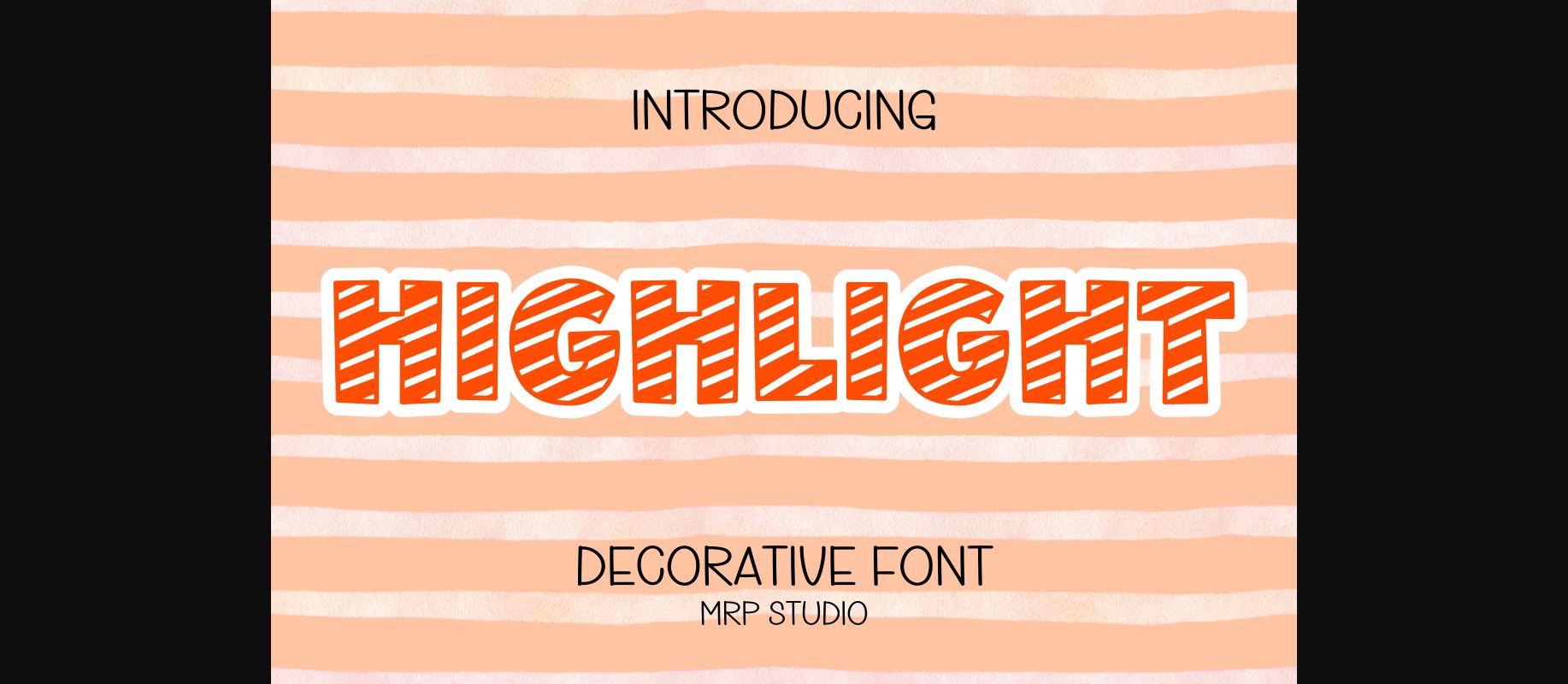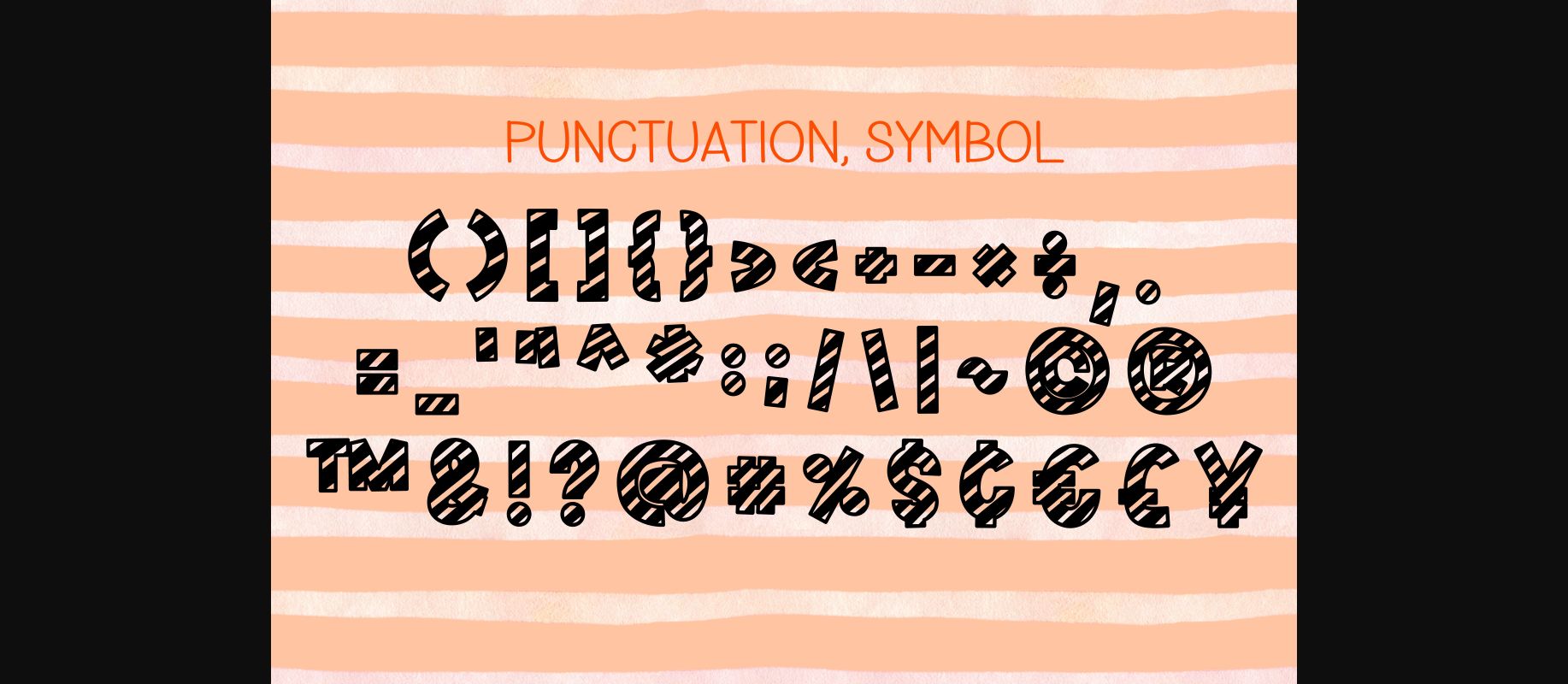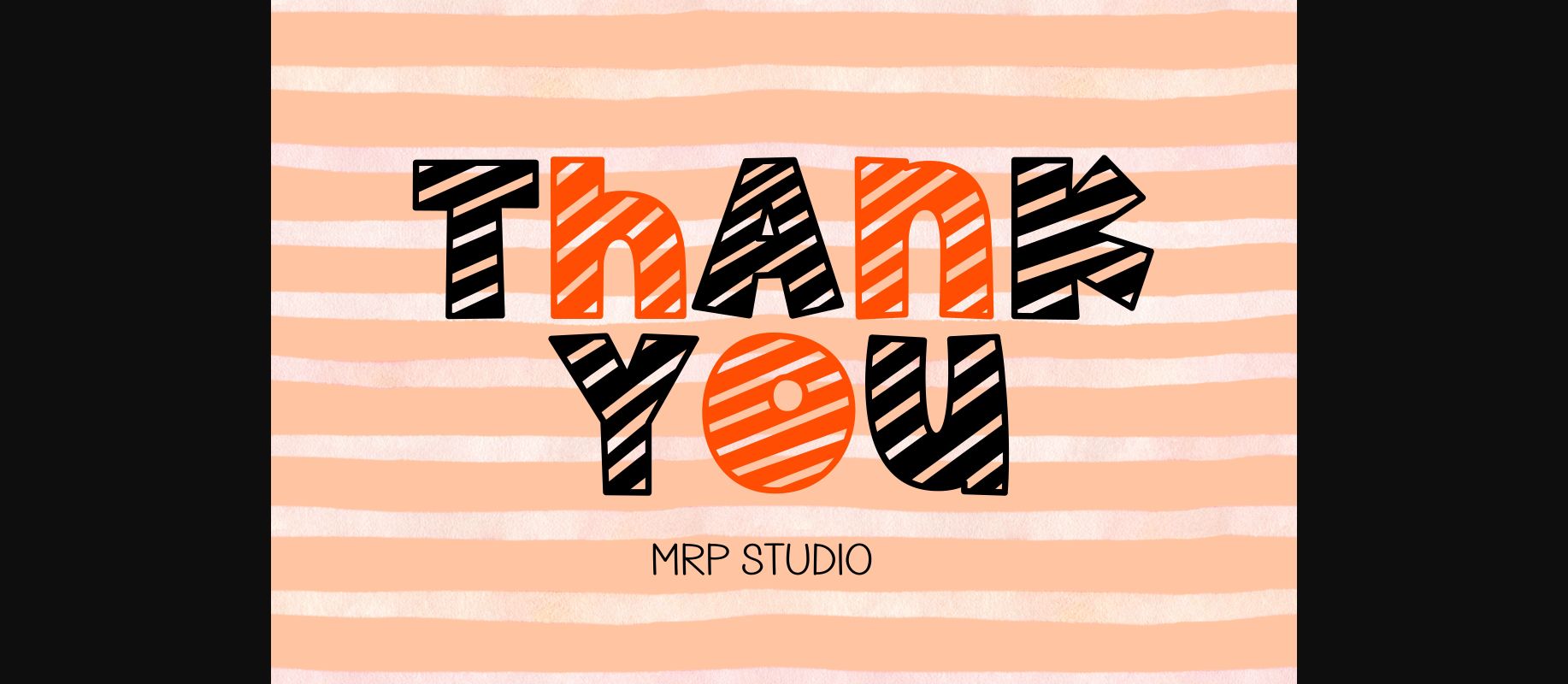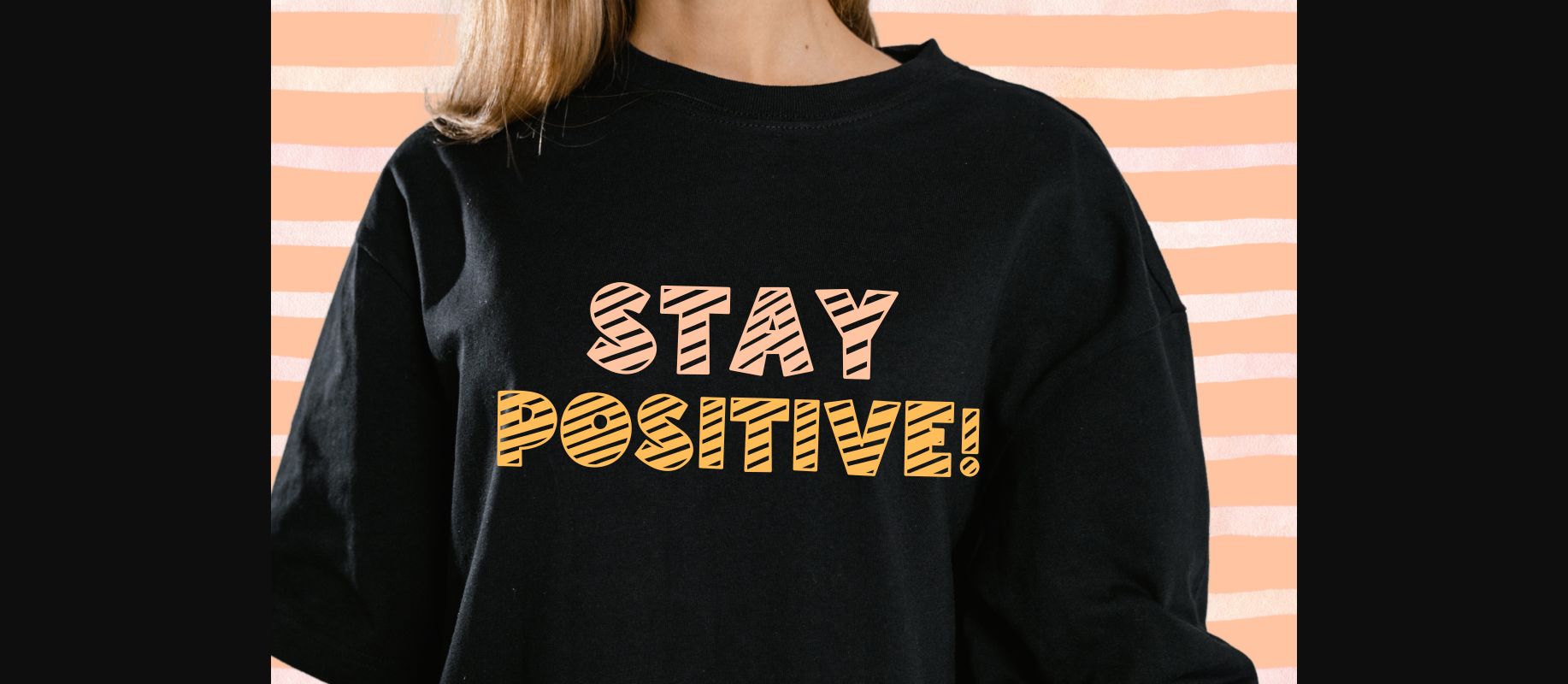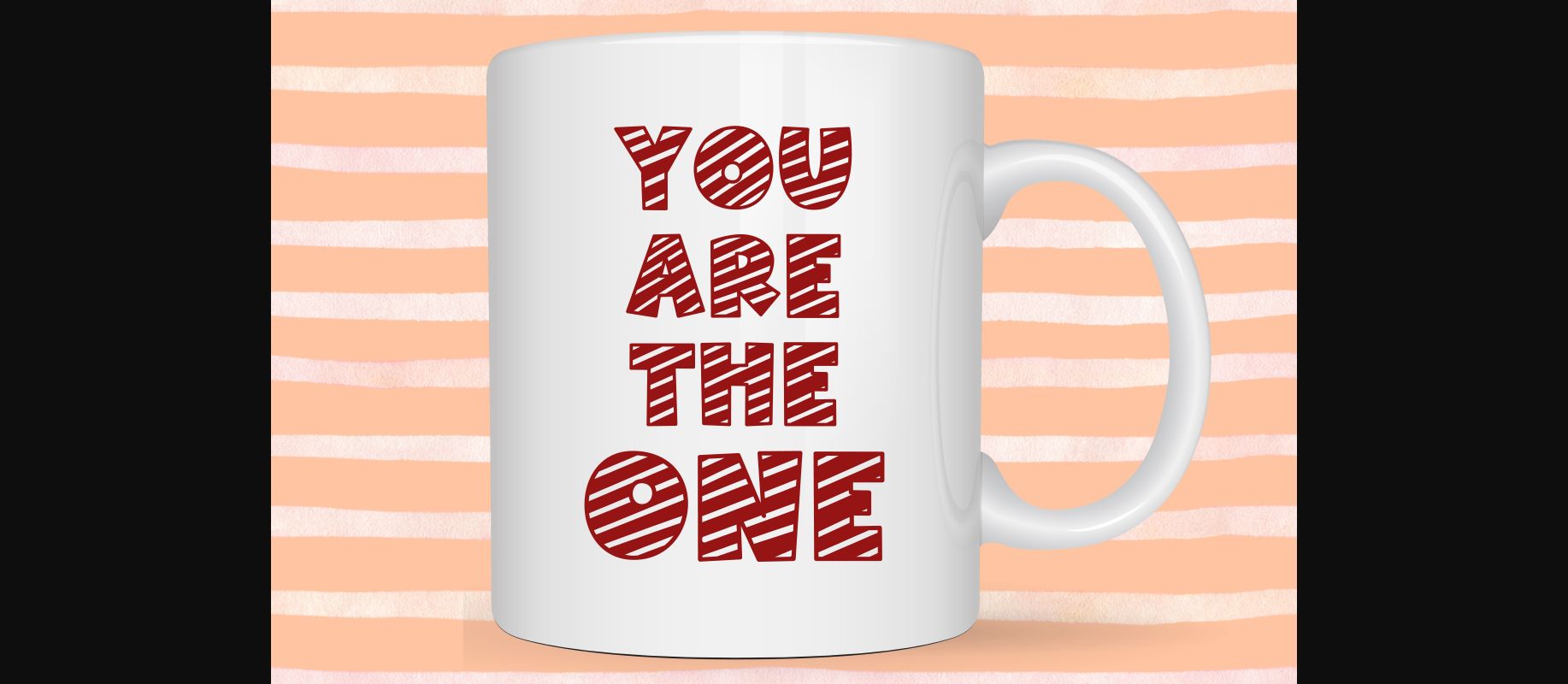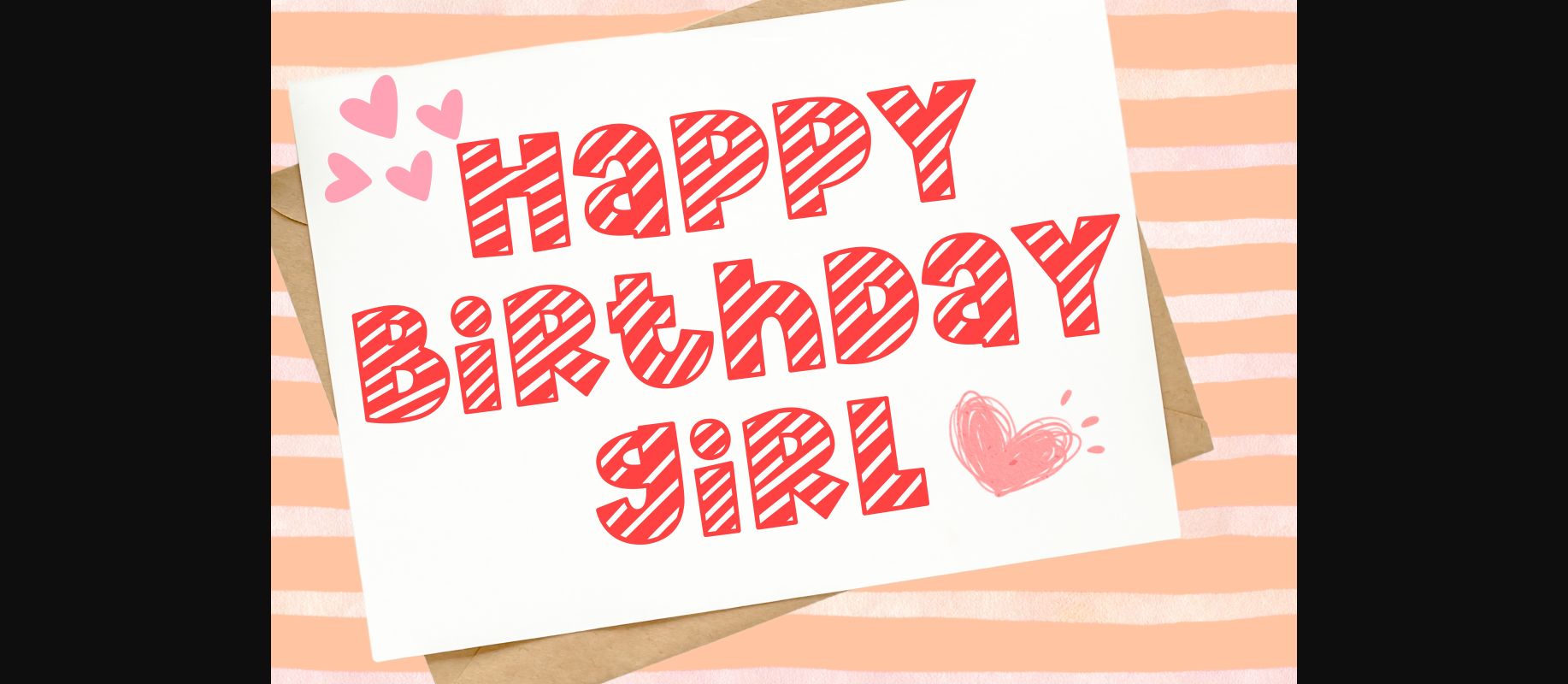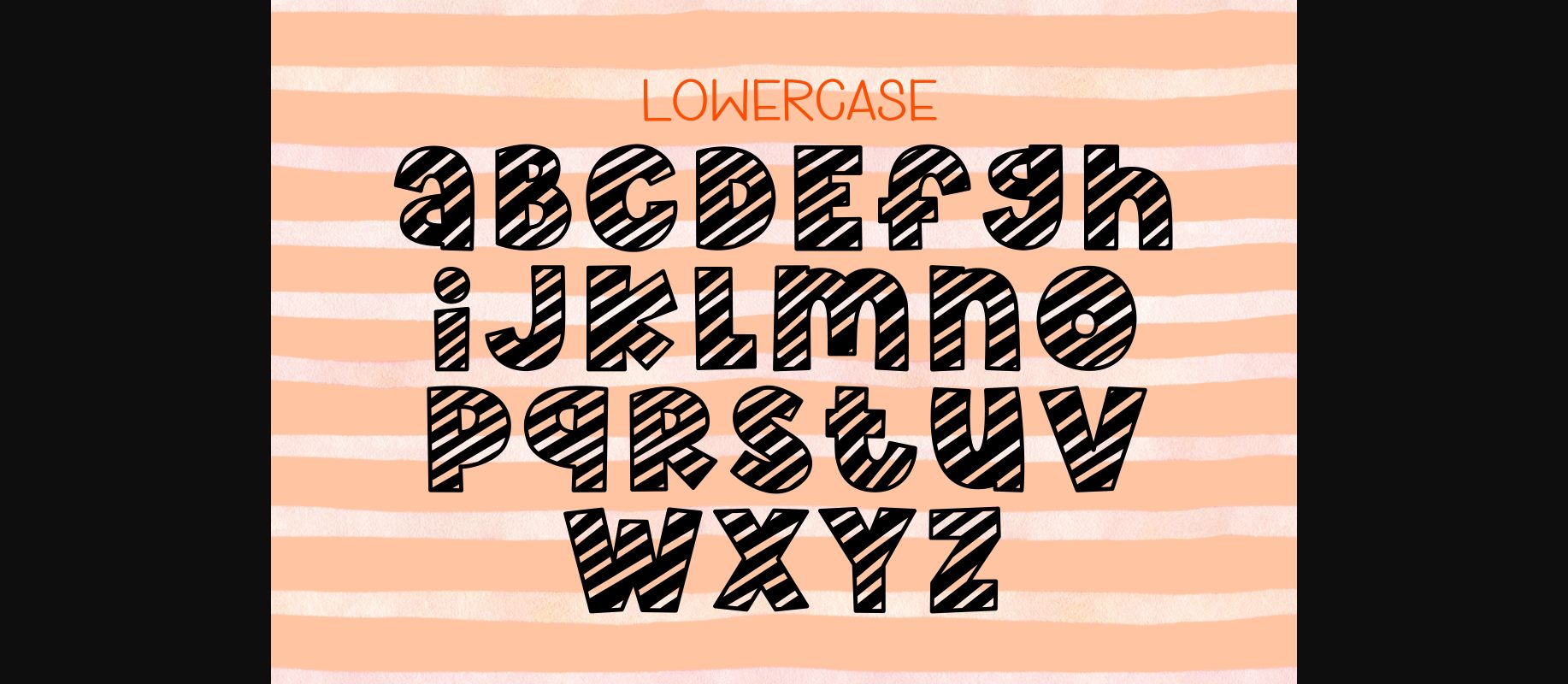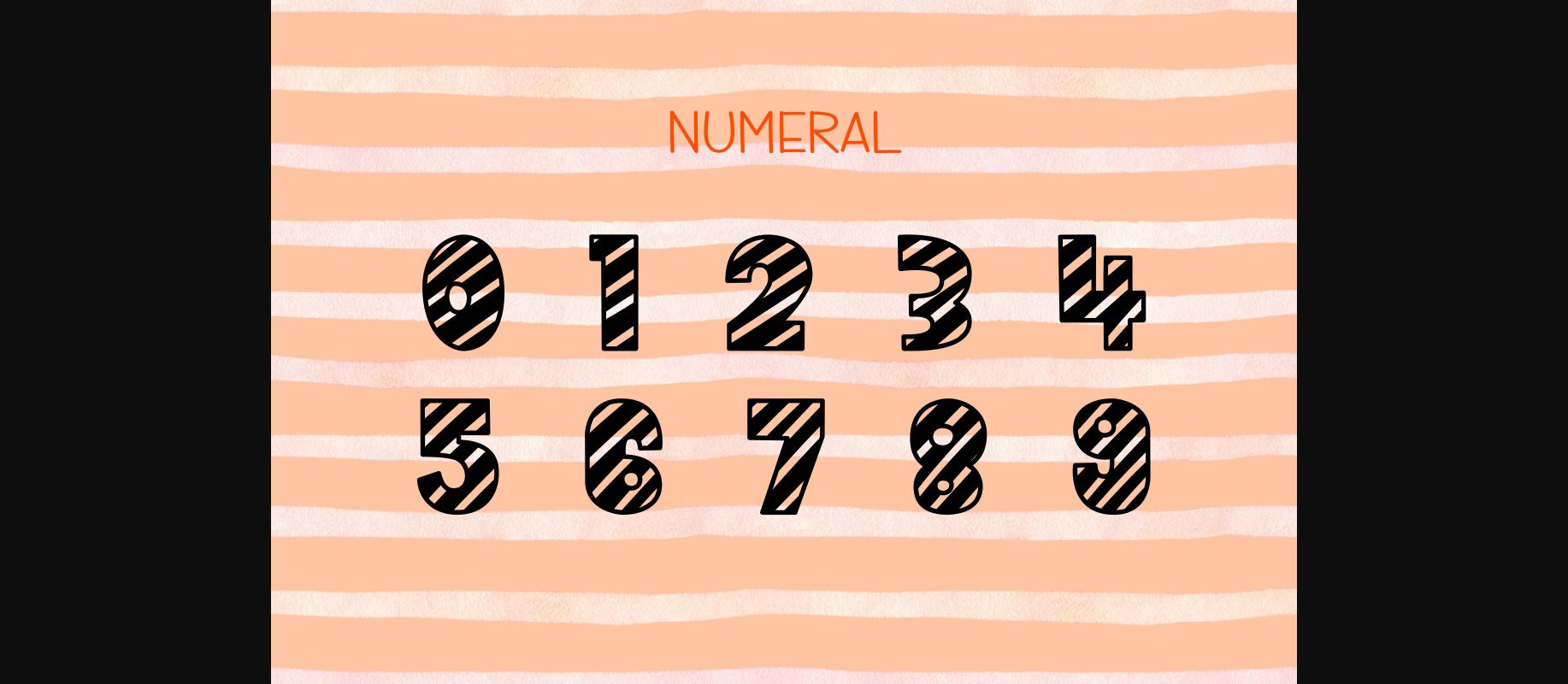
Highlight is designed in a cute and adorable decorative font style. It would be a lovely addition to your designs and also your child-related project such as back to school, birthday party decoration and much more.